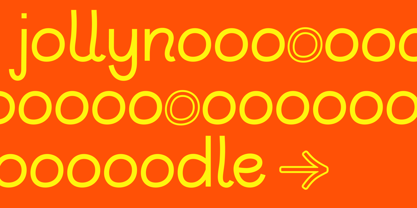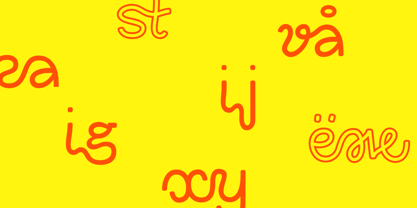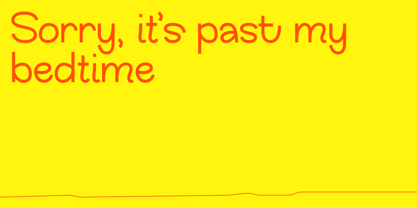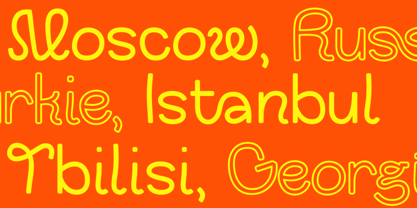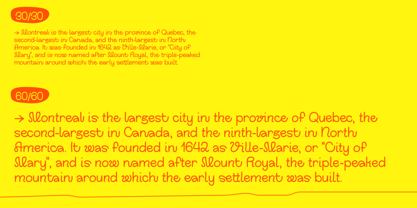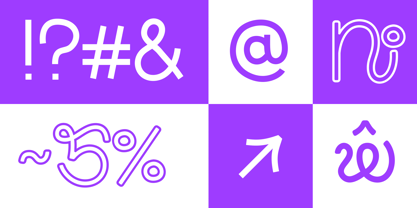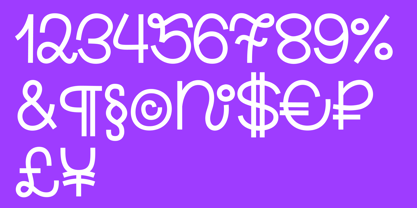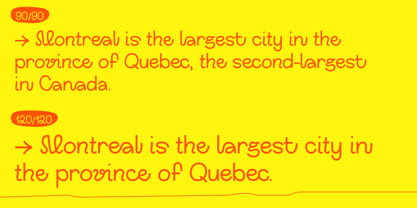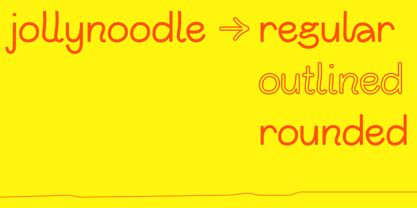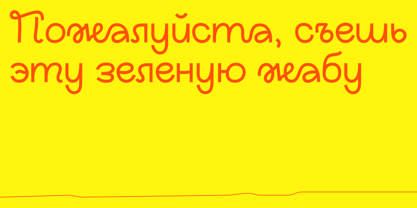
Jollynoodle
by Polina Baydina
Jollynoodle🍜 is a display typeface with disproportionate handwritten forms and loops in the structure. This low-contrast font is presented in three styles: Regular, Outlined, and Rounded. Its important feature is the variety of ligatures in both Cyrillic and Latin. Despite its experimental nature, the typeface works in both large and small sizes.
About Polina Baydina
These are the fonts designed and crafted by a Montreal-based type designer Polina Baydina. In her practice she aims to create typefaces that push the boundaries of conformity and expand on the idea of creating for the sake of creating. She lives by the belief that designers should pursue what fuels their soul and brings back the spark that drew them to this field. Thus, her projects are a product of pure experimentation and fun.